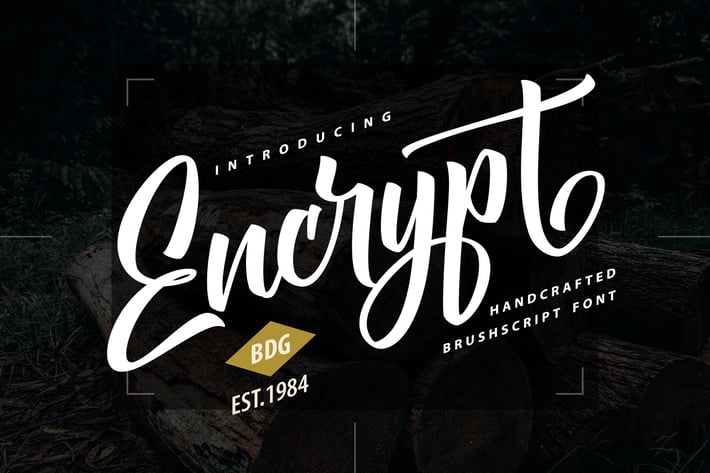
Encrypt | Handcrafted Brush Script Font
Encrypt | Handcrafted Brush Script Font with a calligraphy style, So beautiful on invitation like greeting cards, branding materials, business cards, quotes, posters, and more!